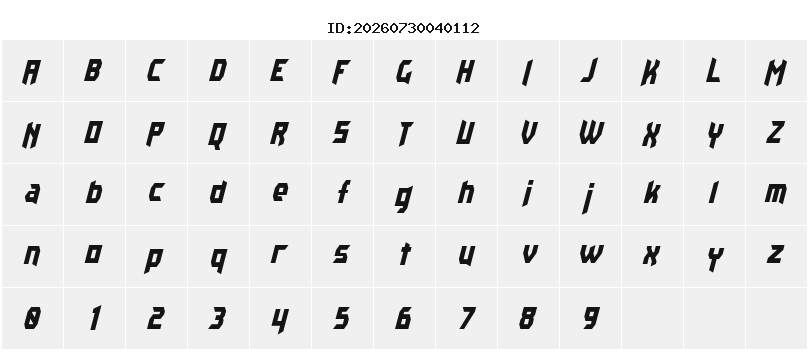
Kaplah Preview
• Font Name: Kaplah
• Designer: Neale Davidson
• Manufacturer: Pixel Sagas
About Kaplah.otf
Kaplah.otf is a modern, elegant sans-serif font designed for ultimate readability and visual harmony. Perfect for branding, headlines, web design, and print materials.